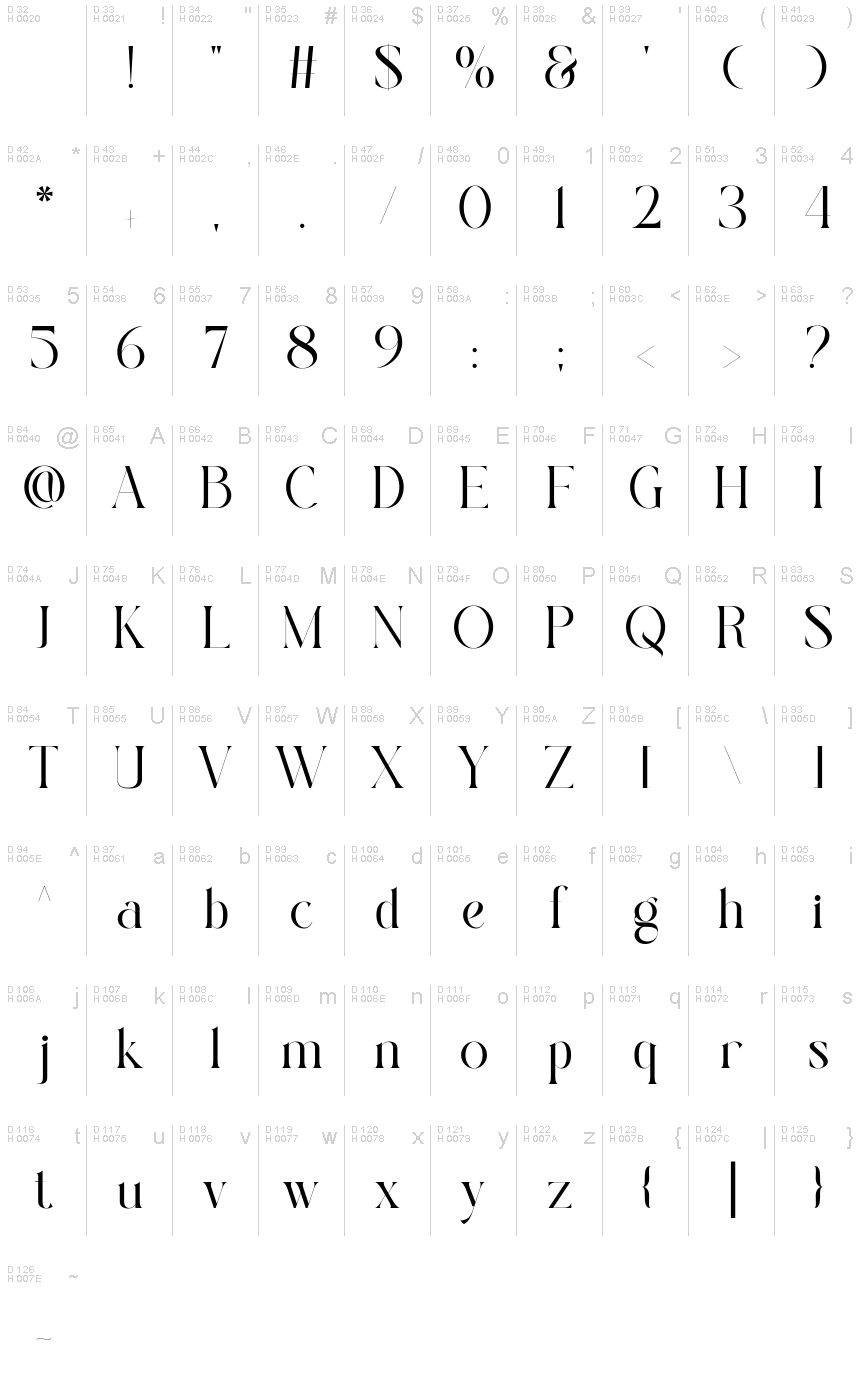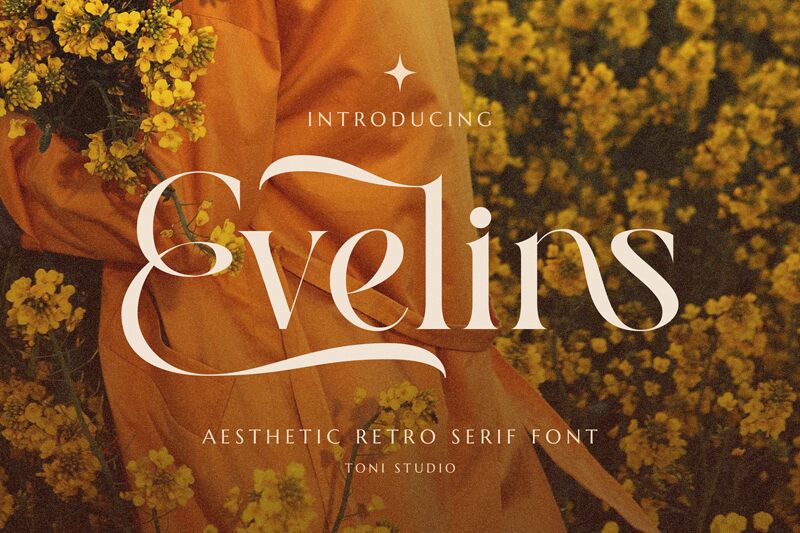
Evelins
Evelins by ToniStudio is a captivating serif font that exudes a timeless elegance. Its refined strokes and subtle variations create a harmonious and visually appealing aesthetic. The font's distinctive character is accentuated by its delicate serifs, lending a touch of sophistication to any design. Evelins embodies a classic charm that can effortlessly transcend various creative applications, from editorial layouts to luxurious branding projects.
This versatile font can elevate the visual impact of a wide range of design endeavors. Its refined and elegant qualities make Evelins an excellent choice for high-end publications, prestigious event invitations, or upscale product packaging. The font's versatility also lends itself well to logos, headers, and titles, where its timeless appeal can captivate and engage the audience.